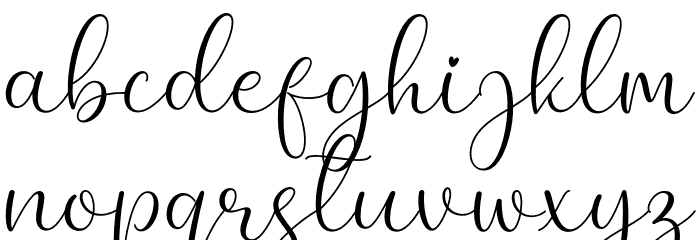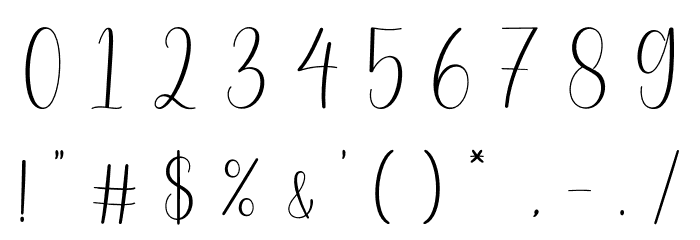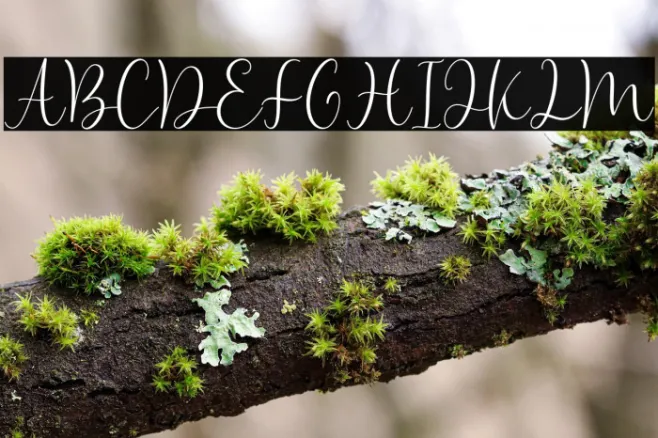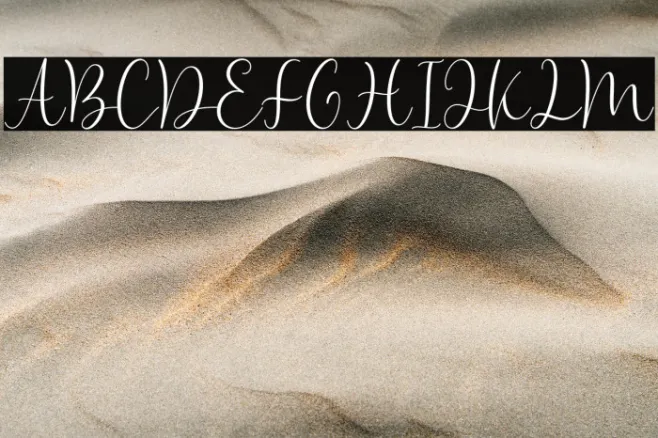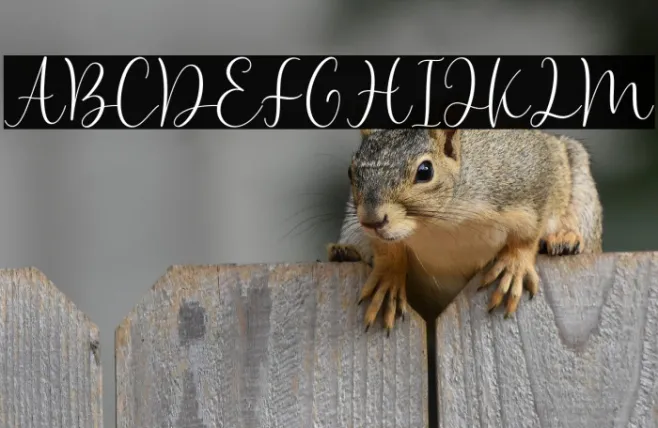
Pasile Font
This font features an elegant and flowing script style, characterized by its smooth, cursive letterforms. The uppercase letters exhibit a graceful, looping design, while the lowercase letters maintain a consistent fluidity with subtle variations in stroke width. The numerals are slender and maintain the script's delicate aesthetic. Special characters are integrated seamlessly, enhancing the font's cohesive look. Overall, this font exudes a sense of sophistication and charm, making it suitable for projects that require a touch of elegance.
An elegant, flowing script font with graceful cursive letterforms.
- Font: Pasile
- Proposed Projects: Ideal for wedding invitations, greeting cards, elegant branding, and personal stationery.
- Category: Script
- Overall Style: Elegant, Sophisticated
- Use Case: Headlines, Invitations, Branding